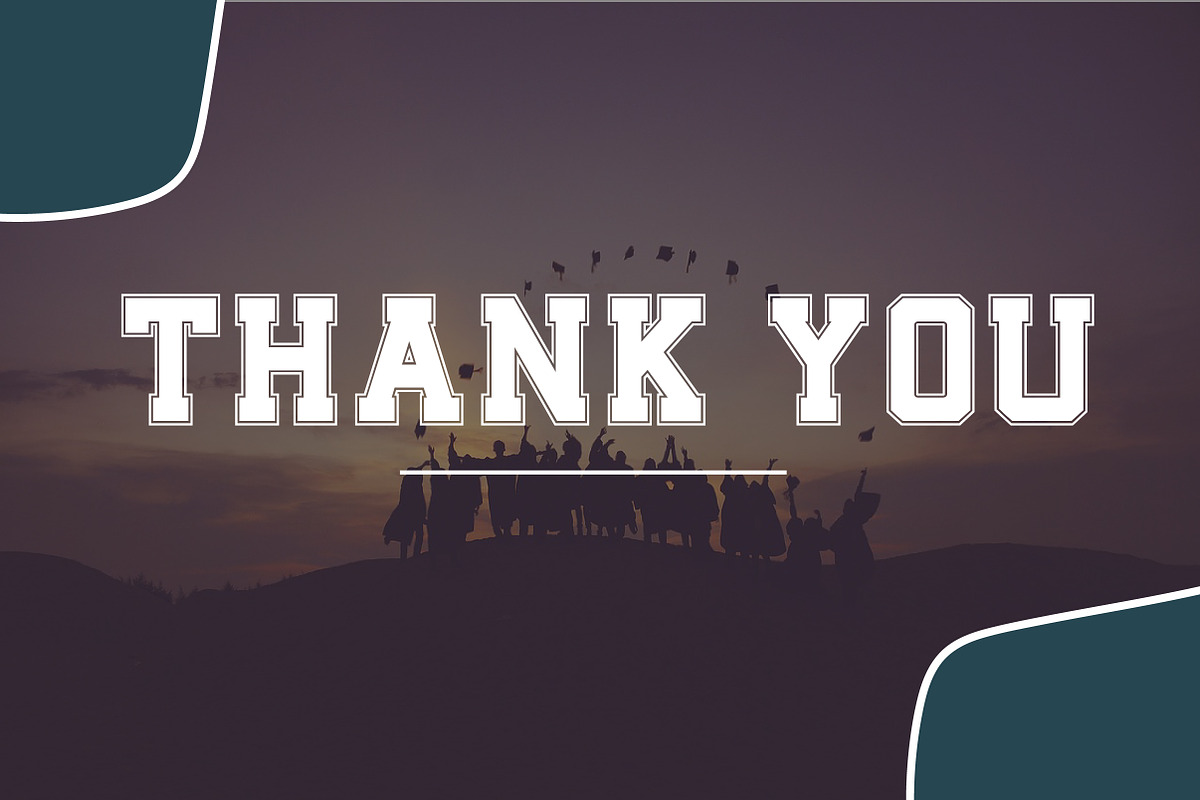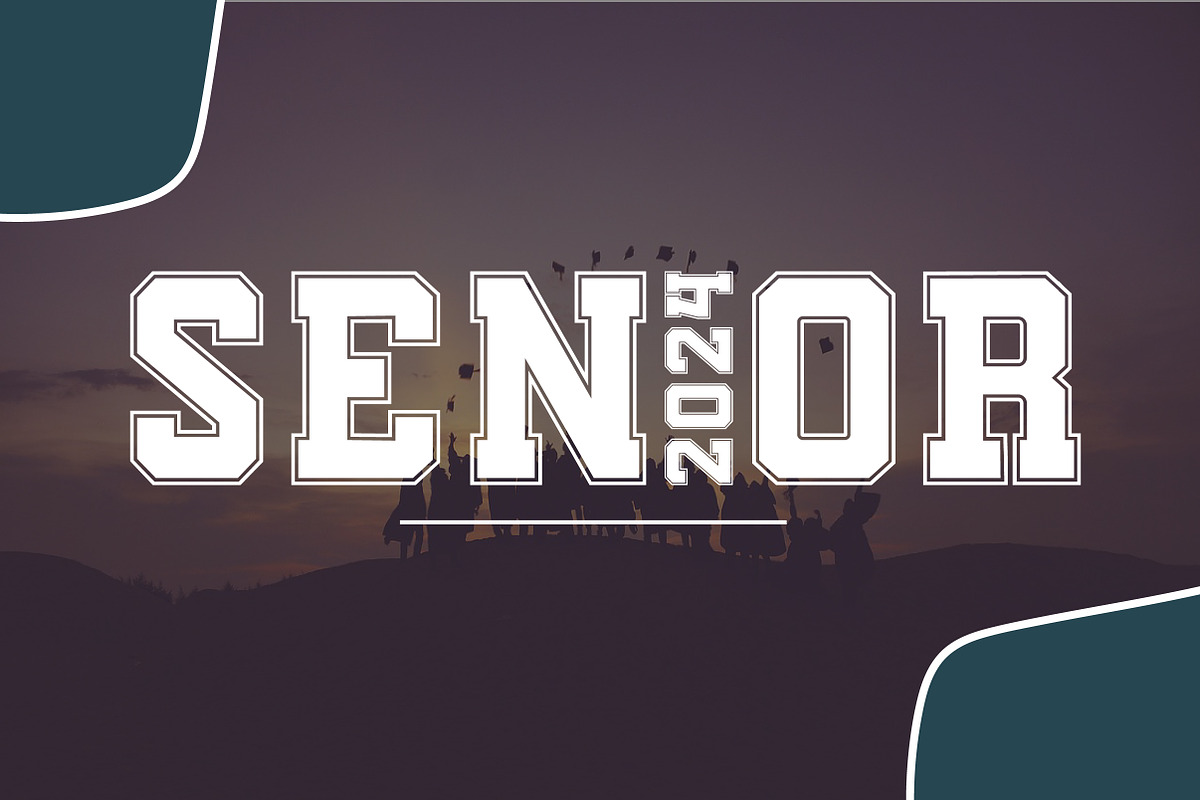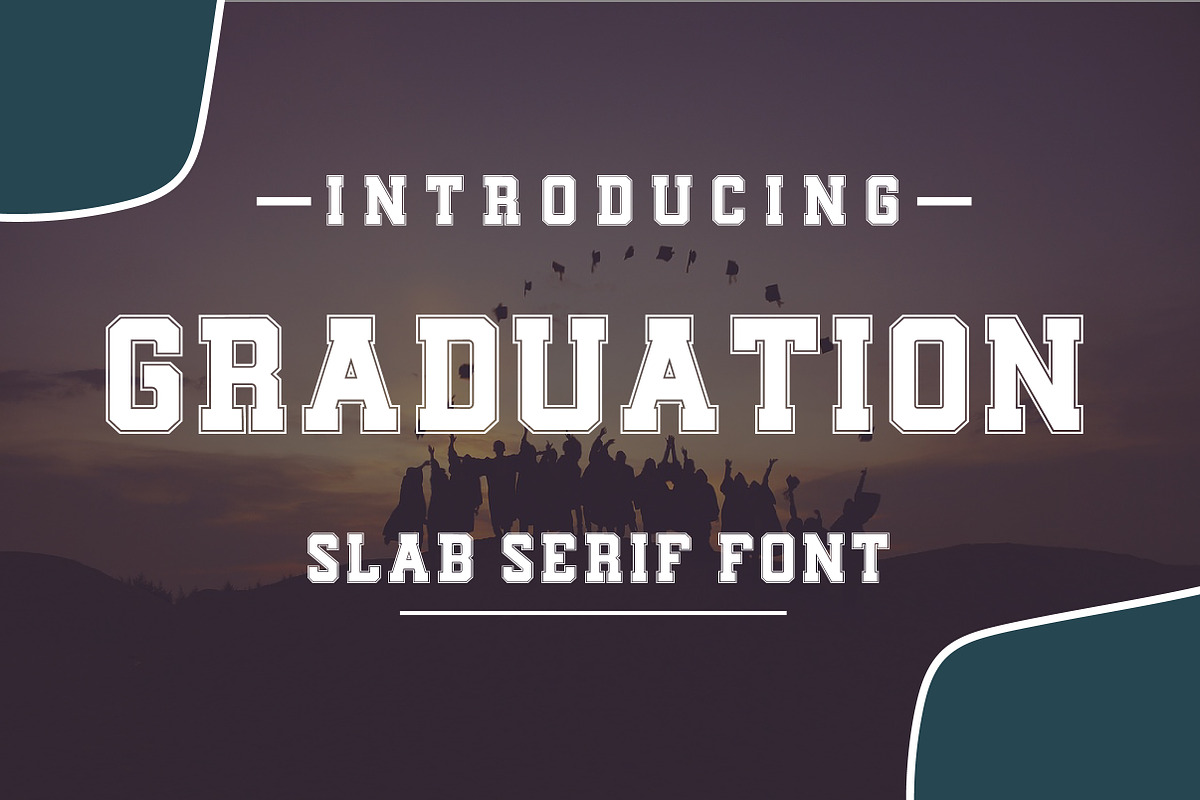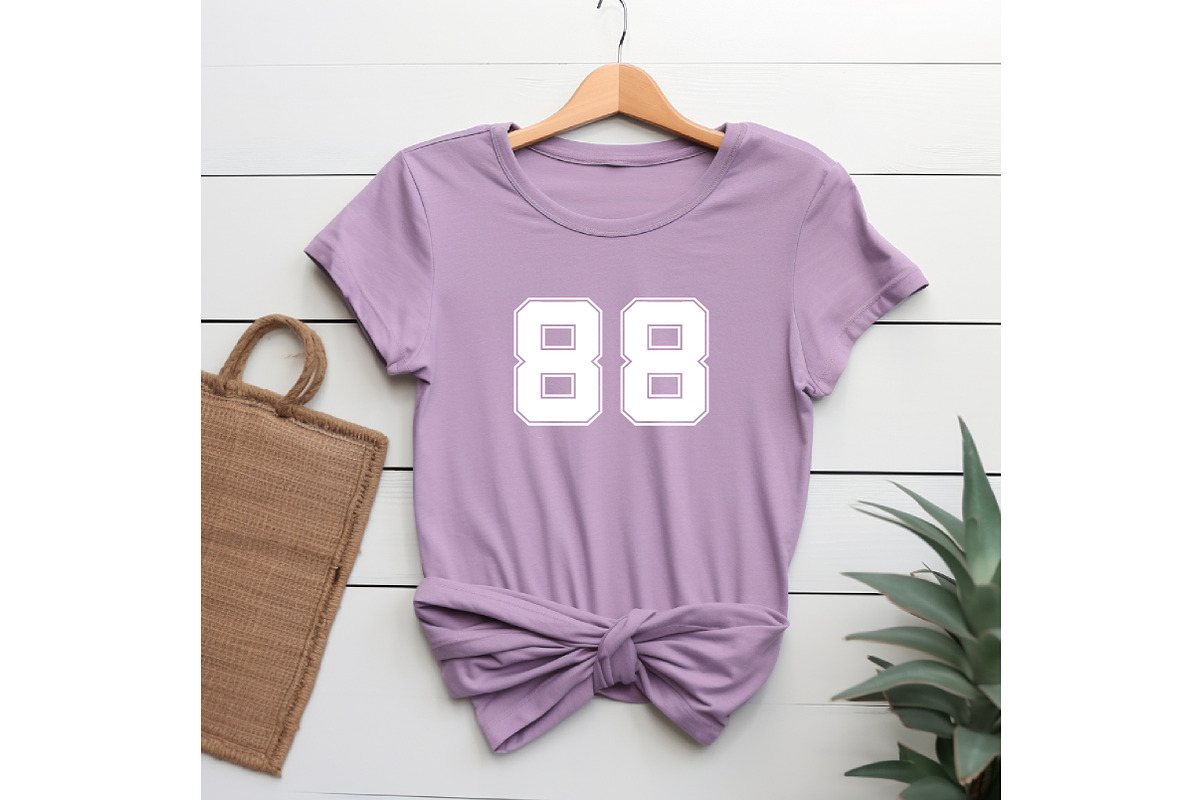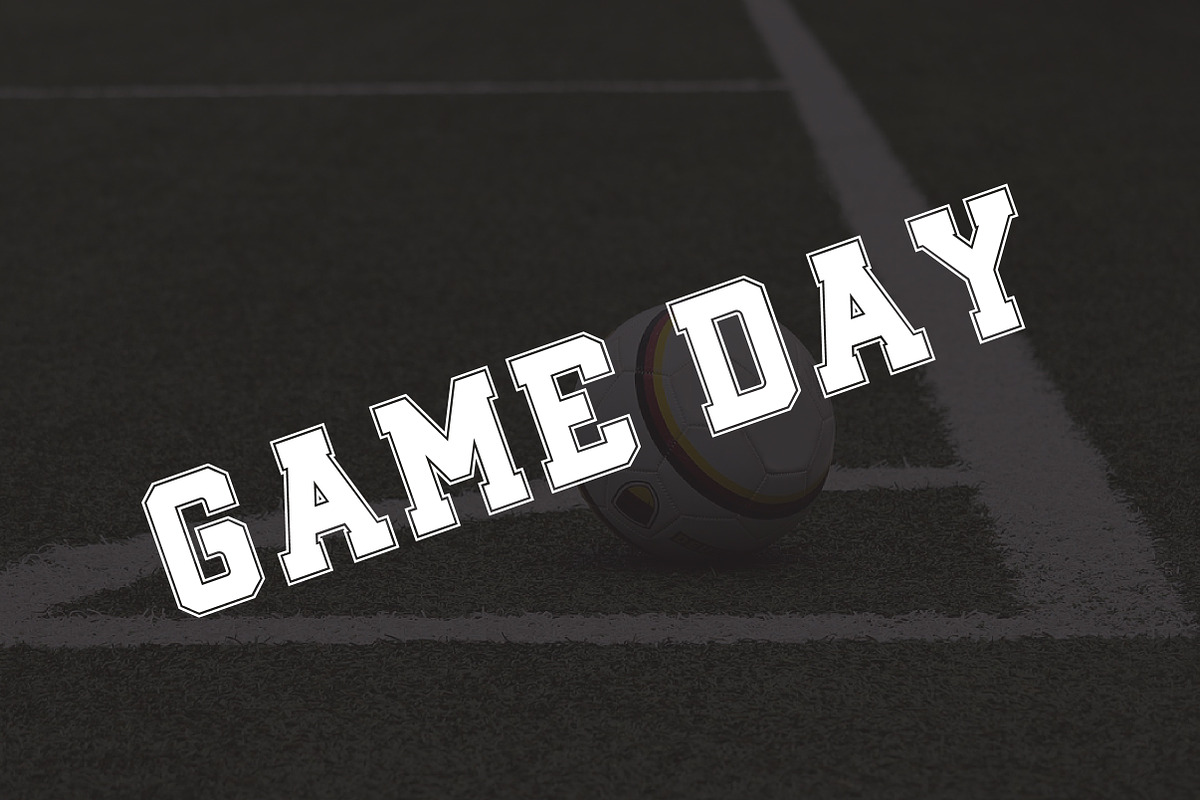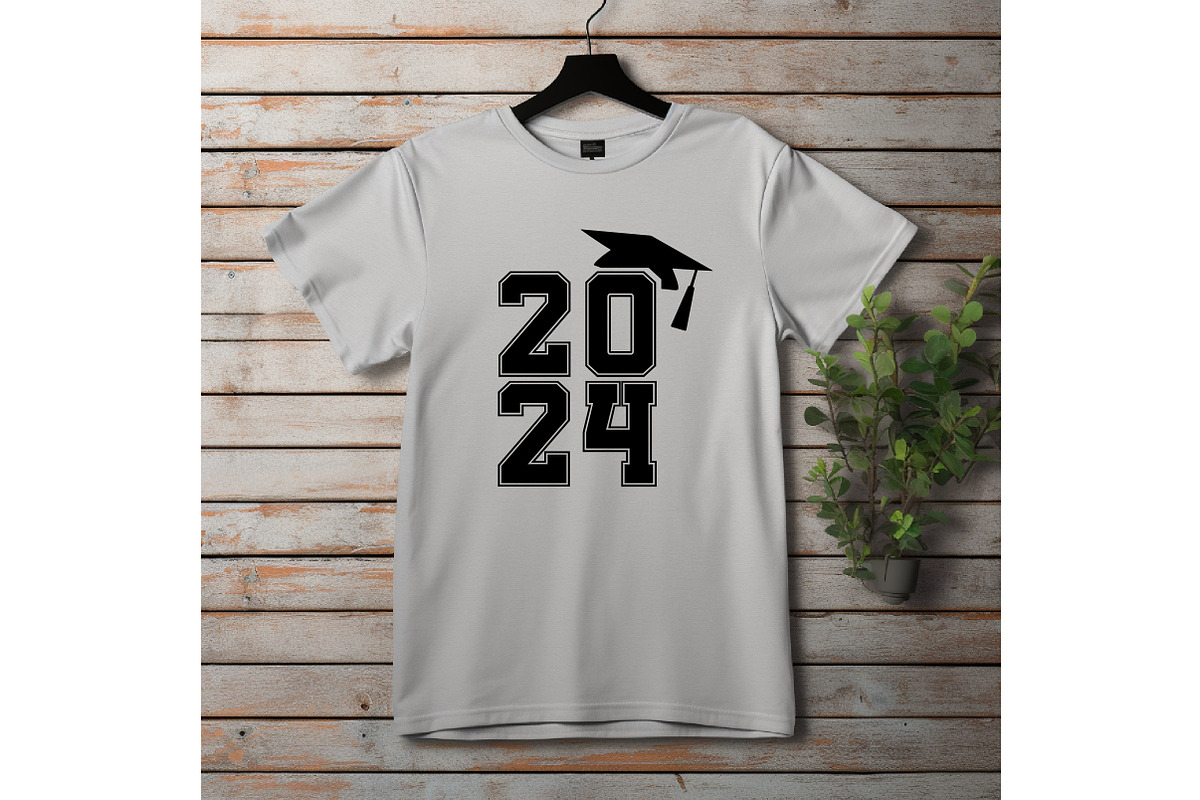
Graduation is a slab serif font. This is another in your college sports jersey design. It looks very powerful in sports design. using it for crafts, digital design, presentations, or making greeting cards, Sports Design, jersey design, T-shirt Design and more.. Why not use this attractive font in your designs??? Making it the perfect choice for sports team logos, jerseys, and event posters. Use it now!!